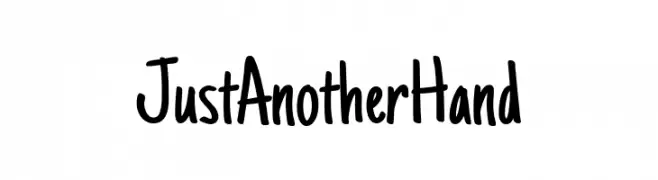
( Monica T. - monicagalaxy.info )
A playful, hand-drawn font with irregular strokes and a whimsical style.
A pixelated, blocky font with a retro digital aesthetic.
( Fonts by billyargel.blogspot.com - Billy Argel )
A bold, modern font with elongated vertical lines and sharp edges.
A bold, condensed font with high contrast and a modern, geometric style.
( Michael Gaines )
A modern, geometric font with rounded edges and circular cutouts, offering a playful yet clean aesthetic.
A bold, gothic-style font with sharp, angular edges and intricate details.
A bold, gothic-inspired font with sharp, angular edges and intricate details.
A bold, gothic-inspired italic font with sharp, angular edges and dramatic flair.
A playful, bold font with a vintage slot machine theme.
( Walter Paggioro - www.raptuscreativi.com/site/fields/type-design/ )
A playful, hand-drawn font with a whimsical and irregular style.
A futuristic, geometric font with a double-line structure and sharp, angular edges.
A futuristic, geometric font with a three-dimensional outline effect.
A futuristic, geometric font with bold, angular lines and a digital aesthetic.
A bold, edgy font with sharp, angular lines and dynamic flow.
A dynamic, angular font with a forward-leaning slant and dramatic flair.
A dynamic, edgy font with sharp, angular strokes and a modern aesthetic.
A modern, artistic font with a 3D effect and geometric design.
A sharp, edgy font with angular strokes and dynamic energy.
A bold, angular font with a futuristic and decorative style.
( Fonts by or from www.graffitifonts.net )
A bold, graffiti-inspired font with dynamic strokes and sharp angles.
A modern, clean sans-serif font with excellent readability.
( Fonts by FontFuror )
A modern, clean sans-serif font with balanced characters and consistent stroke width.
A bold, modern sans-serif font with clean lines and strong presence.
A bold, rounded, and playful font with smooth curves and a dynamic style.
A bold, playful font with a retro-modern style and rounded characters.
A bold serif font with strong, clear letterforms and a modern classic appeal.